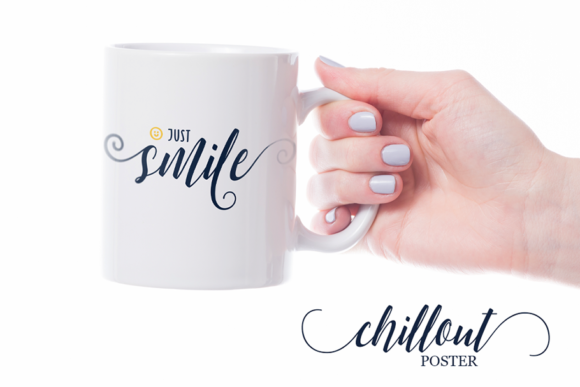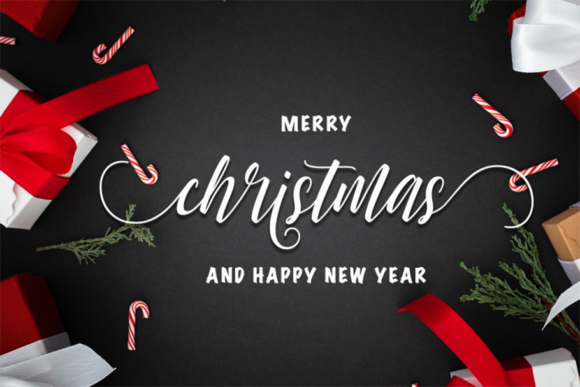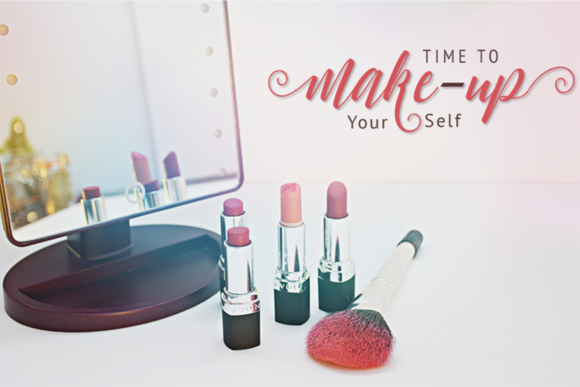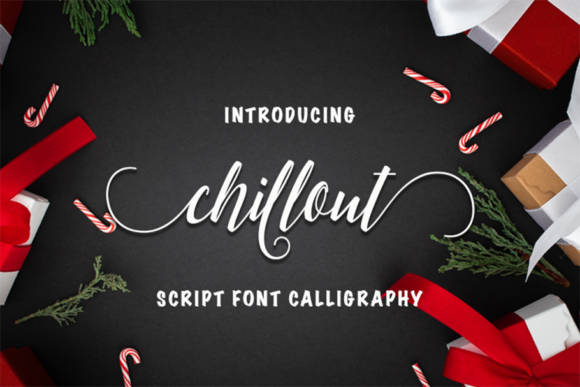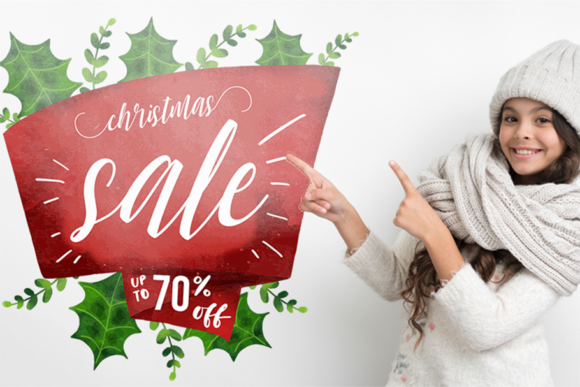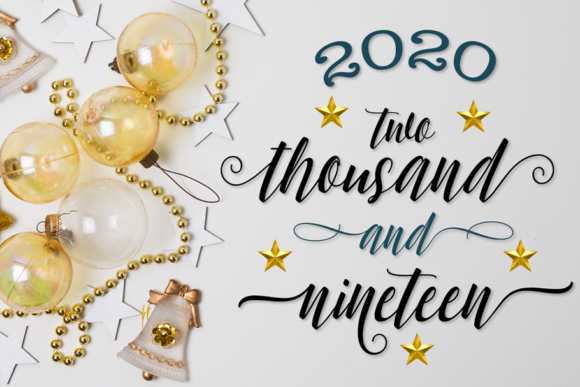
Introduction to Chillout Font
Chillout is a modern calligraphy script that’s both fancy and fresh.
Fall in love with this gorgeous font .
Key Features of Chillout Font
Why Choose Chillout Font?